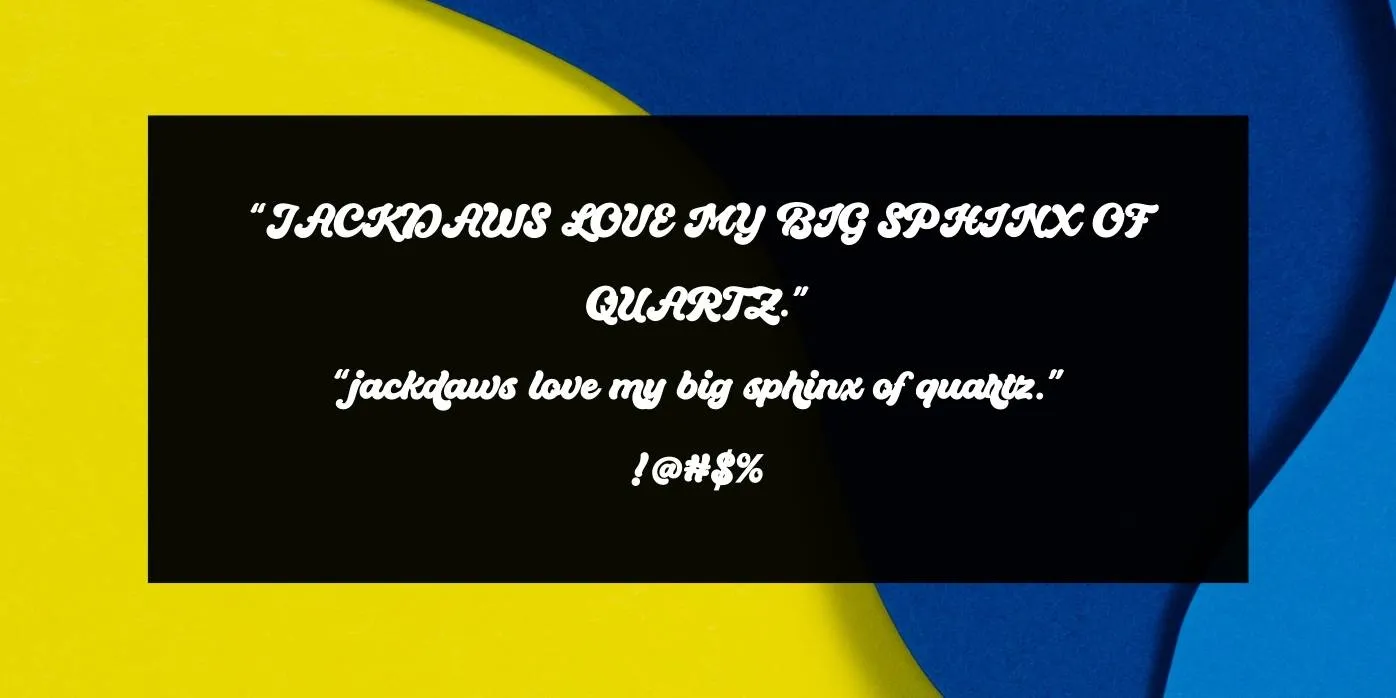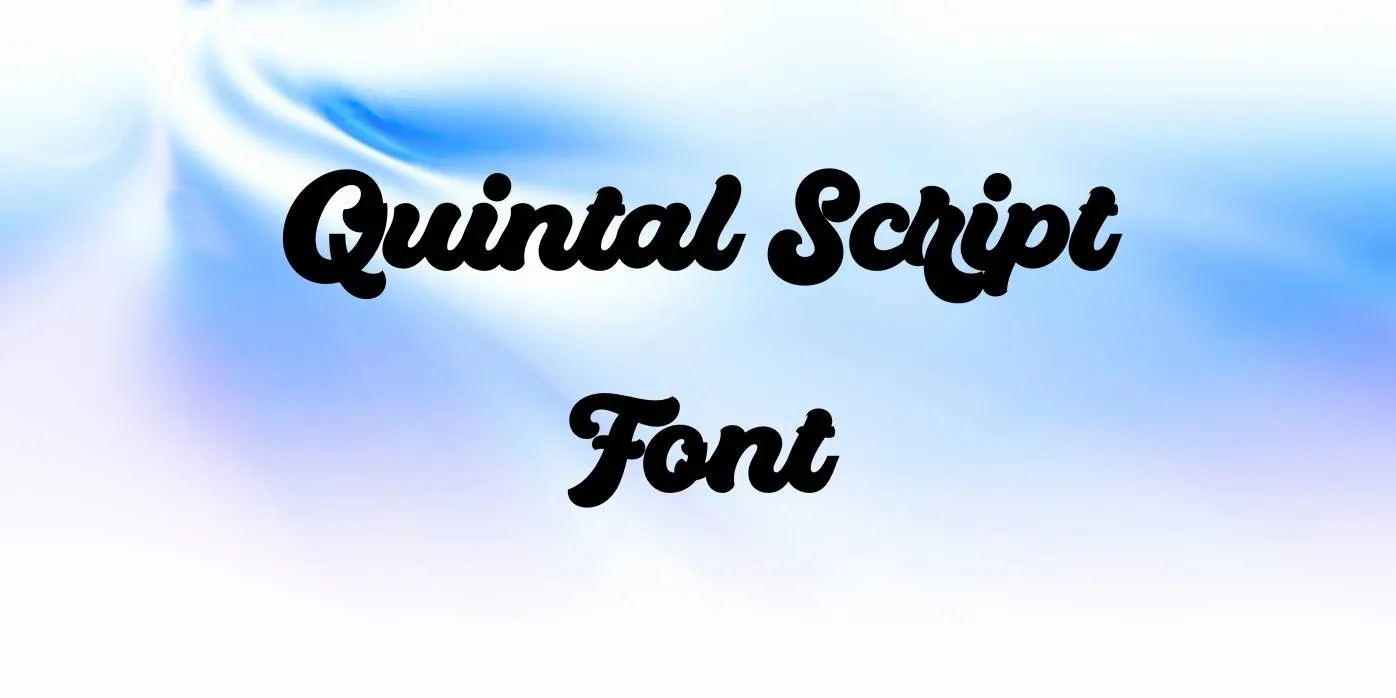
Quintal Script Font
Quintal Script Font is a handwritten font that has a very beautiful and stylish look. This font was designed by Mans Greback and Sarwo Edi. It was launched by Saffatin. co.
Because of its strong shapes, it is considered a very popular font in the 20th century. These font shapes are very strong and attractive. It consists of 936 glyphs. Its family class is the script.
The weight of the font is Bold and the width of the font is medium (normal). The patterned nature of this is Italic. It covers all Latin-Languages Europe to South Africa and America to South-East Asia. It can be downloaded on many devices like Windows/Mac Linux and Android.